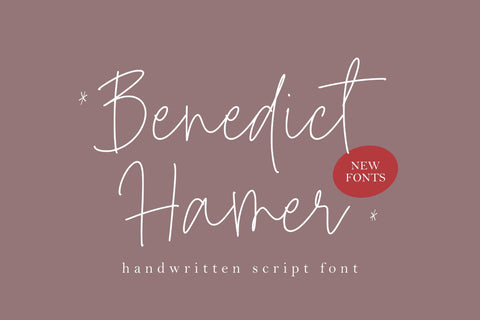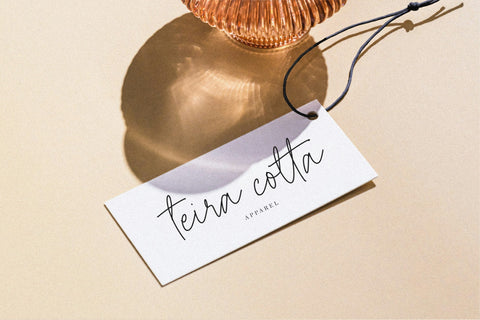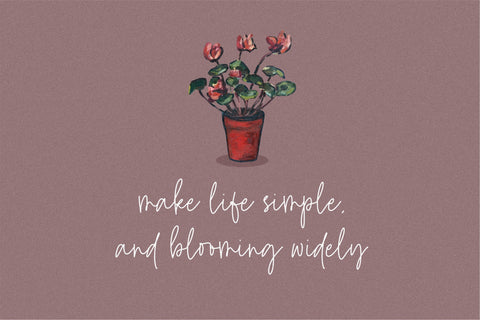
Benedict Hamer Handwritten Script Font
Benedict Hamer is a Handwritten Script Font.
Our Modern Handwritten Script Font with Monoline captures the essence of contemporary design with its clean lines and effortless elegance. The monoline style adds a minimalist touch to the beautifully crafted script font, resulting in an iconic and versatile font that can elevate any design project.